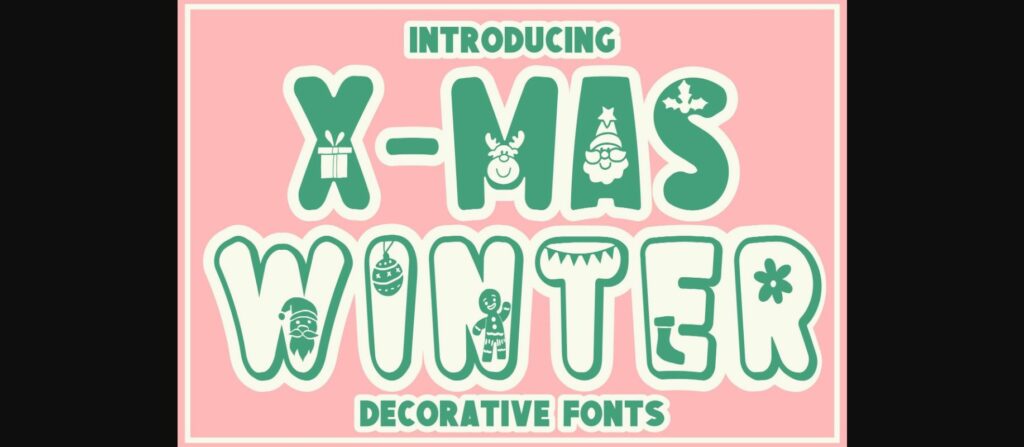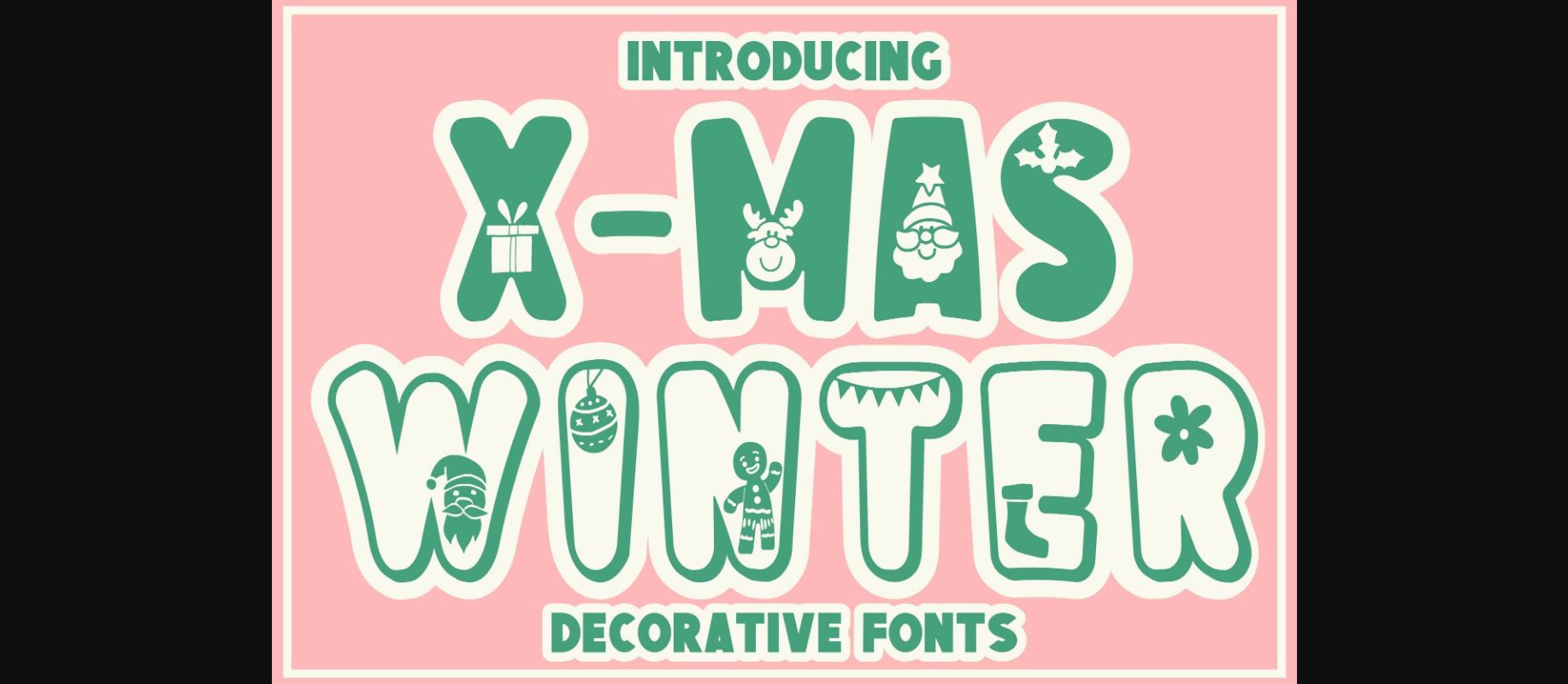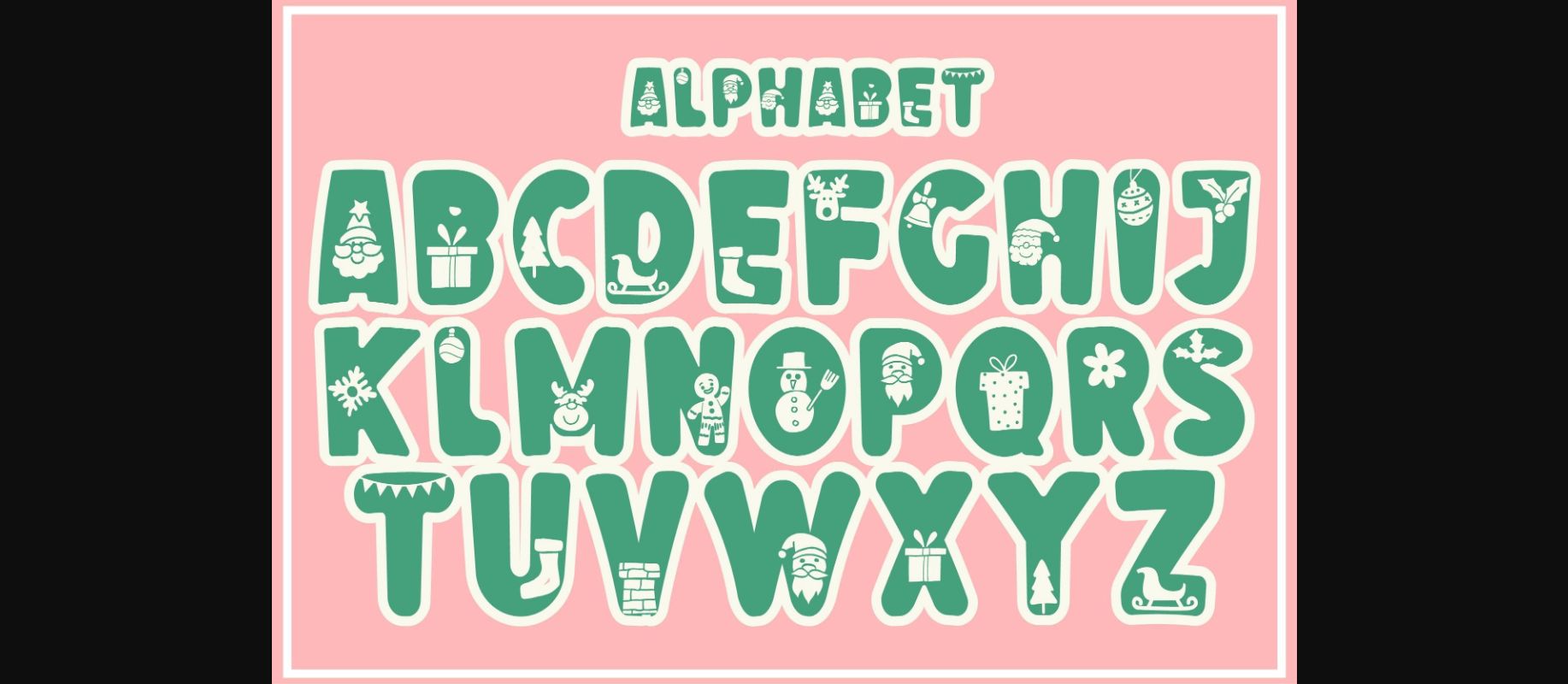
Xmas Winter Font
About Xmas Winter Font
Xmas Winter is a beautiful and relaxed decorative font. It looks beautiful on a variety of designs requiring a personalized style, such as wedding invitations, thank you cards, weddings, greeting cards, logos, and so on.